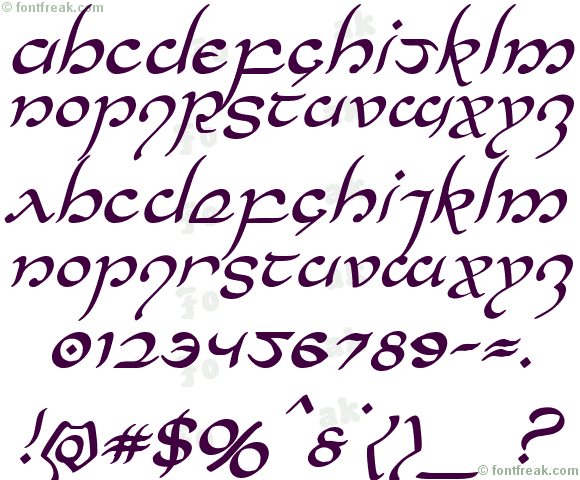
Half-Elven Bold
About Half-Elven Bold
Half-Elven Bold, designed by Daniel Zadorozny, is a captivating display font that falls under the decorative category. This unique typeface showcases a blend of whimsical and fantasy-inspired elements, reminiscent of mythical themes. The font features a distinctive stroke weight that balances boldness with elegance, allowing it to command attention while maintaining readability. The contrast in its letterforms, combined with thoughtful spacing, creates a visually engaging experience, making it perfect for various creative applications.
Characterized by its artistic flair, Half-Elven Bold incorporates decorative elements that evoke a sense of enchantment. The playful curves and pointed serifs add a touch of sophistication, making this font ideal for projects that require a bit of magic. It excels in use cases such as fantasy book covers, themed event invitations, and movie posters where an ethereal touch is desired. Additionally, it can elevate restaurant menus or artisan product labels, providing a unique identity that captures the essence of the brand.
The target audience for Half-Elven Bold includes graphic designers, content creators, and small business owners looking to infuse their work with a sense of creativity and imagination. This font speaks particularly to those who appreciate the intricacies of design and want to convey a narrative through their typography.
What truly sets the Half-Elven Bold font apart is its ability to transport viewers into a world of fantasy while remaining highly functional for various applications. Its free availability as a freeware download makes it an attractive option for creatives seeking distinctive typefaces without breaking the bank. For those looking to enhance their projects with a unique visual style, the Half-Elven Bold font free download is an excellent choice.